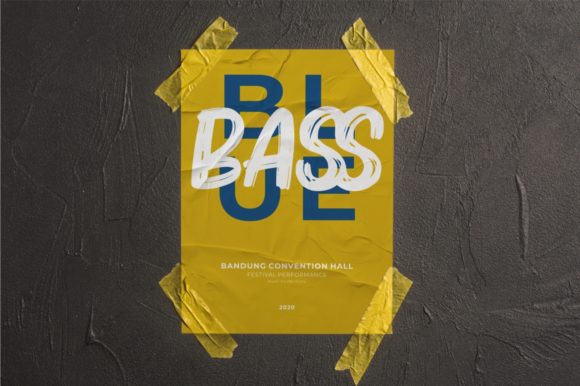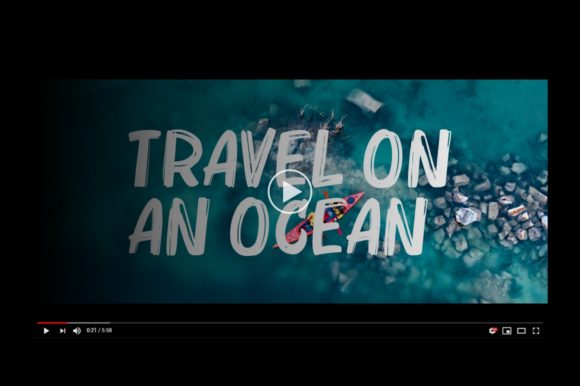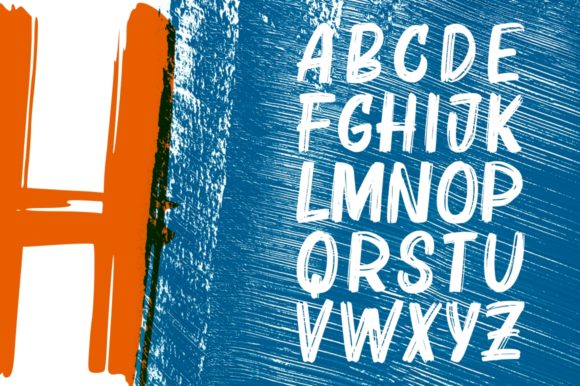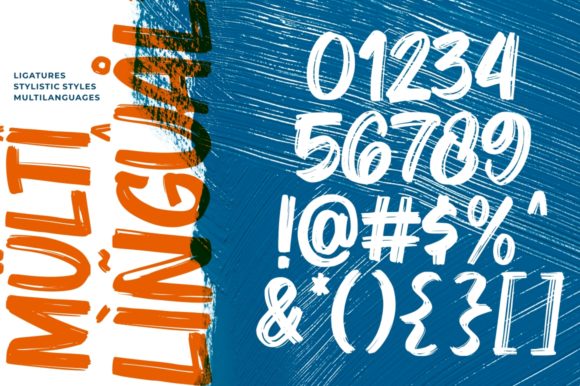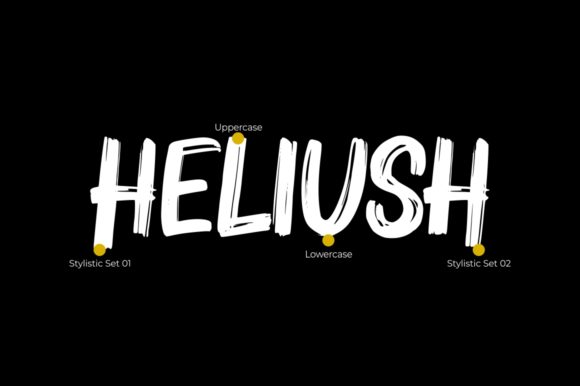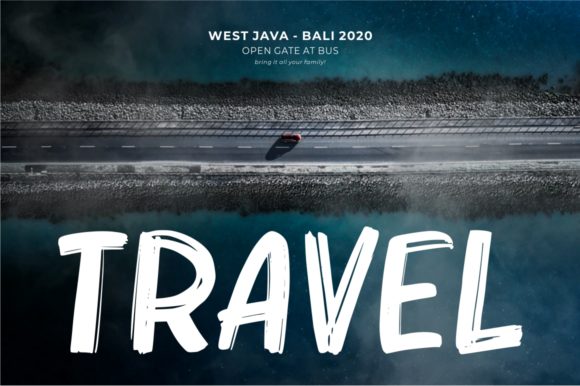
The Perfect Brush Stroke: Unlocking the Power of the Bruzh Font
You know that feeling when you’re working on a design project and you just can’t seem to find the right font? It’s like the whole thing is missing that special something, that authentic vibe that sets it apart from the rest. And then, suddenly, you stumble upon it – that one font that makes everything click into place.
Enter the Bruzh Font, a dry brush script that’s full of life and energy. Its purpose is simple: to add an authentic touch to any design project, making it stand out from the crowd. Whether you’re working on a branding project, a poster, or a social media campaign, the Bruzh Font is the perfect companion to help you achieve your creative vision.
For designers, the Bruzh Font is a valuable asset, offering a unique and versatile tool that can be used in a wide range of projects. Its versatility and authenticity make it a must-have in any designer’s toolkit, and its ability to add a personal touch to any design makes it a game-changer for those looking to stand out from the crowd.
Bruzh Font Key Features
- Unique Characteristics: Bruzh Font features a unique blend of modern and distressed elements, making it suitable for a wide range of design applications.
- Font Style: Bruzh Font comes in a single style, but it offers various weights and widths to cater to different design needs.
Designer Review: Bruzh Font
Overall, I’d say that Bruzh Font has its charm. The font itself is unique, with a quirky, distressed aesthetic that’s sure to grab attention. ✨ The irregularities in letterforms give it a hand-drawn feel that’s reminiscent of old-school signage and posters.
Here are some things that I think work well:
- ✨ The bold, eye-catching typography is perfect for headlines and titles.
- ✨ The distressed texture adds a layer of depth and visual interest.
- ✨ The font is highly customizable, making it easy to adapt to different design styles.
- ⚠️ The font may be difficult to read in small sizes or at a distance.
- ⚠️ The irregularities in letterforms can make it challenging to use in situations where legibility is crucial.
Overall, I think Bruzh Font is a great choice for designs that require a bold, attention-grabbing aesthetic. While it may not be suitable for every project, it’s definitely worth considering for titles, headlines, and other high-impact design elements.
The Bruzh Font is ideal for creative projects that require a unique, hand-drawn look. Some common use cases include:
- Brand logos and identities
- Printed materials (business cards, brochures, flyers)
- Digital graphics (social media posts, infographics)
- Editorial content (magazines, newspapers)